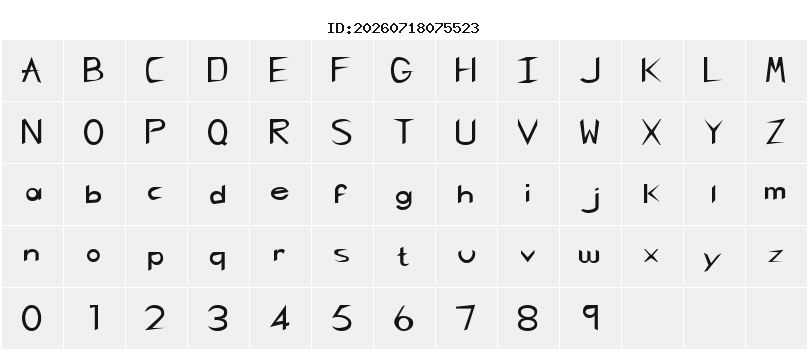
• Font Name: CharlieChan
• Full Font Name: CharlieChan Regular
About CharlieChan.ttf
CharlieChan.ttf is a modern, elegant sans-serif font designed for ultimate readability and visual harmony. Perfect for branding, headlines, web design, and print materials.